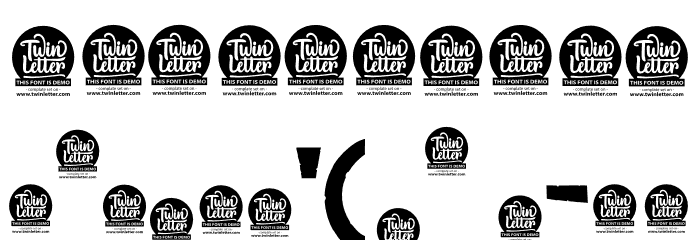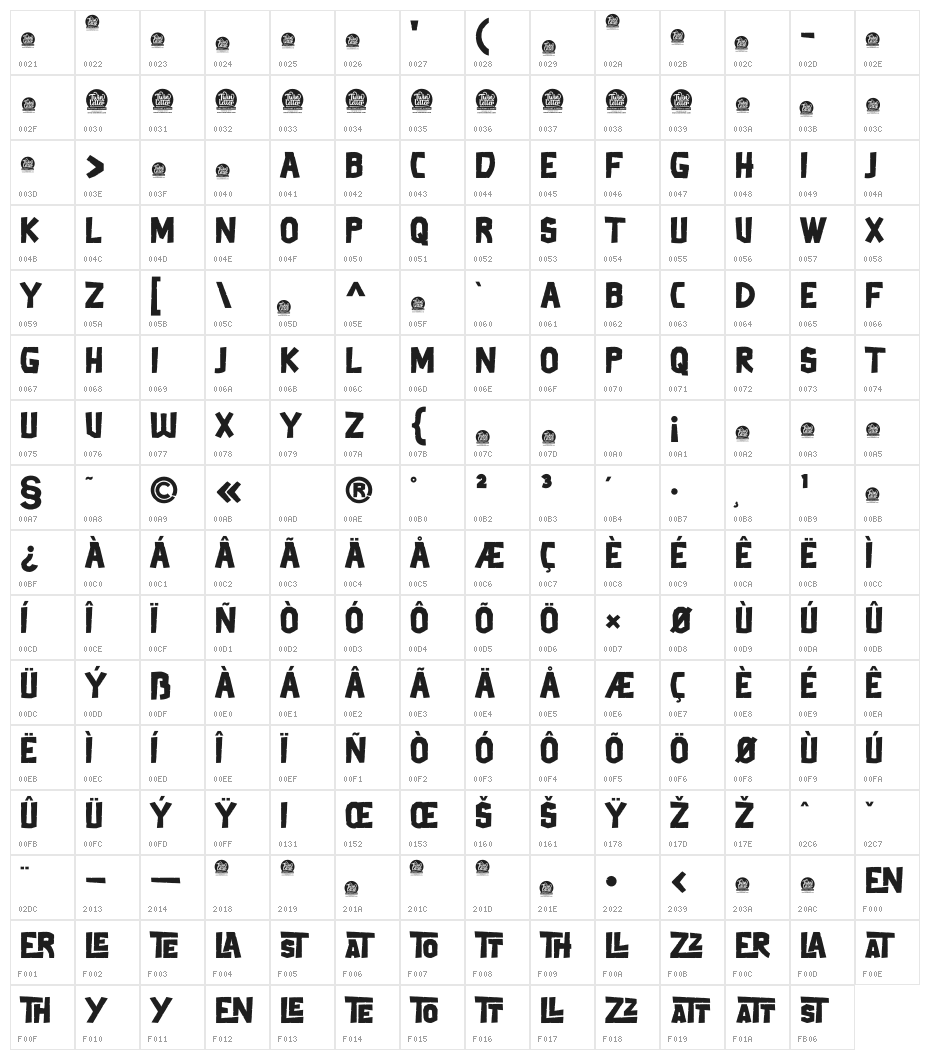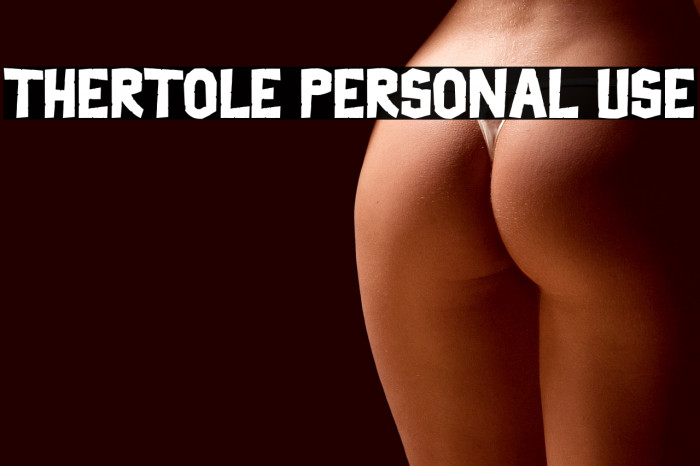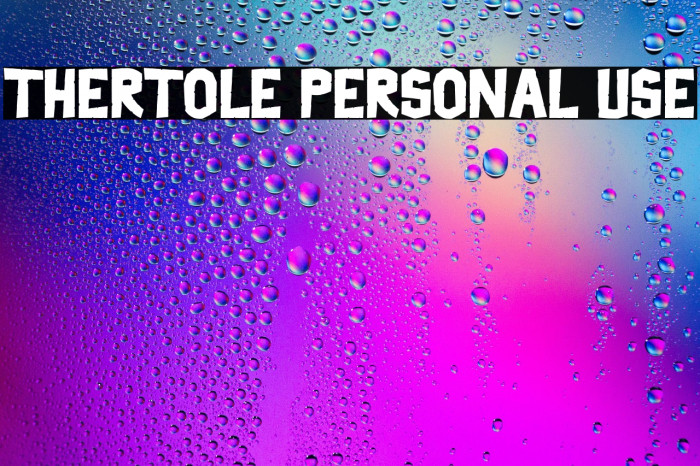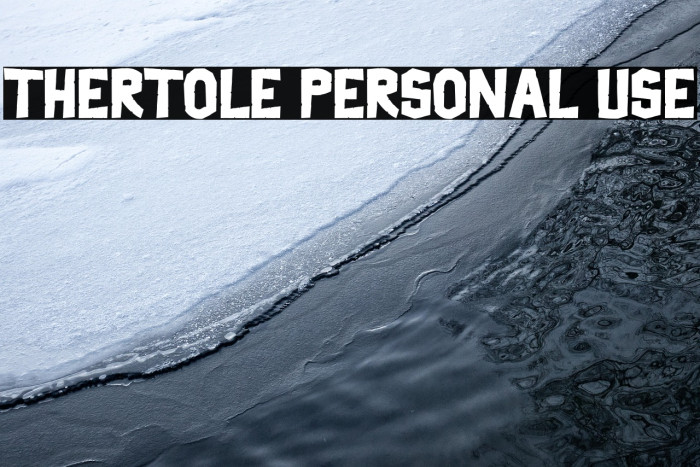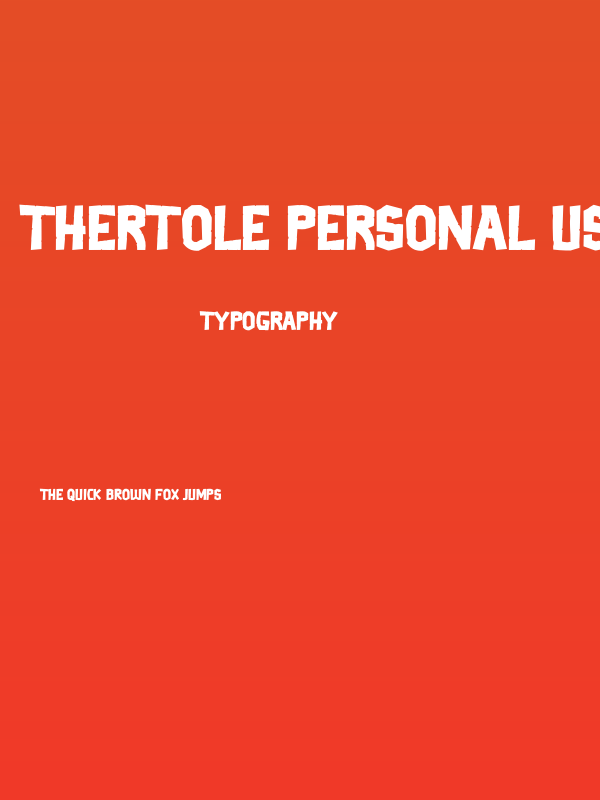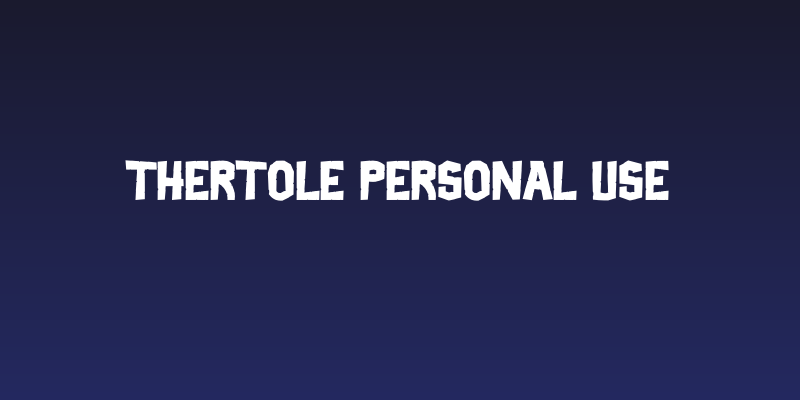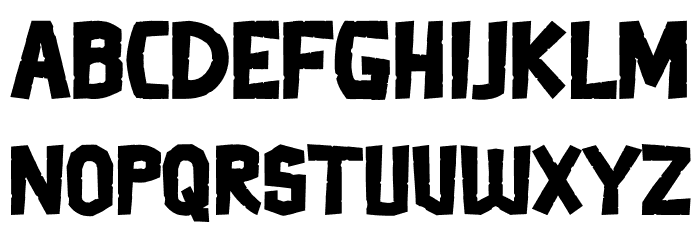
Thertole Personal Use Font
Fonts by twinletter
| Projets proposés | Ideal for posters, logos, branding, and any design needing a bold, impactful look. |